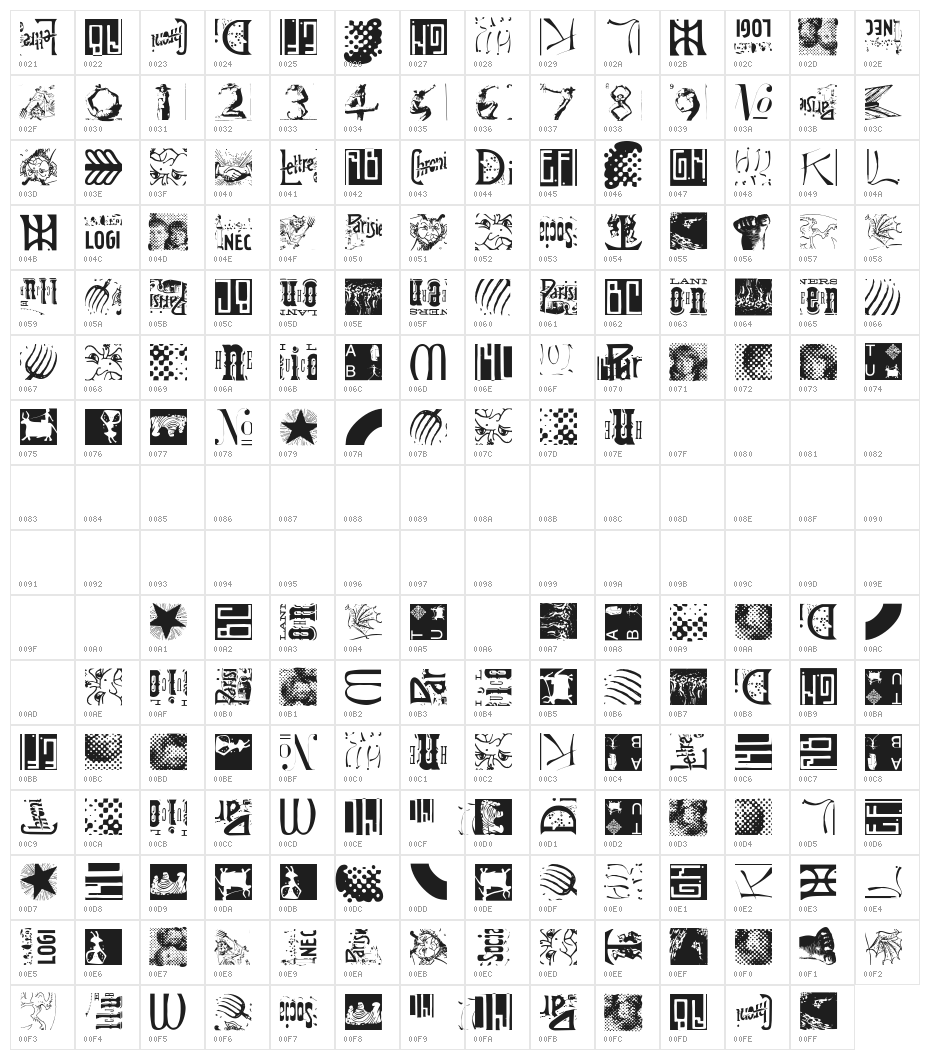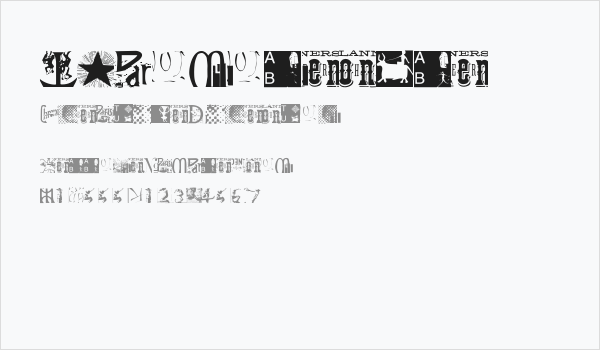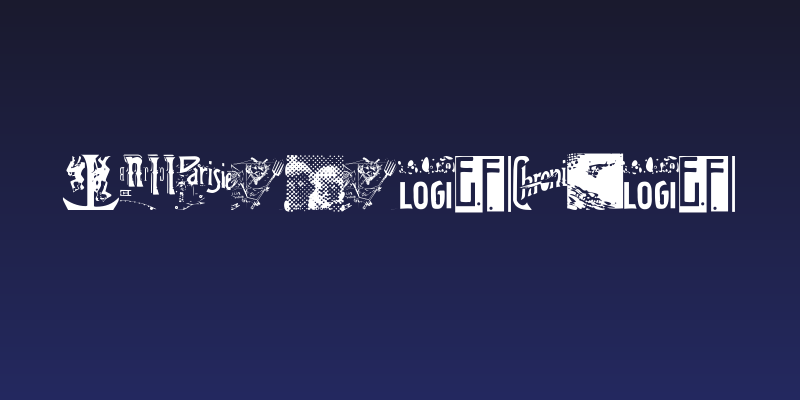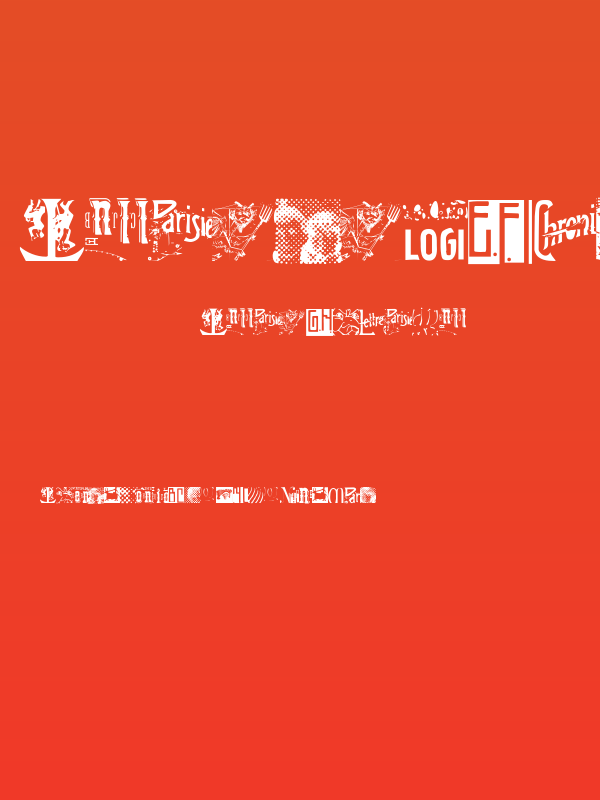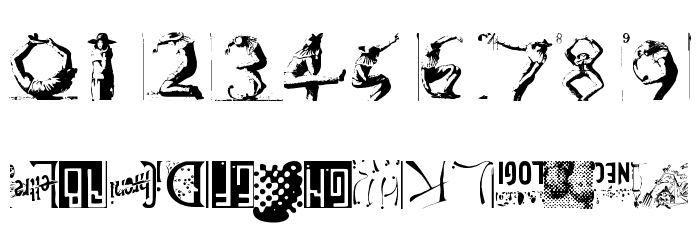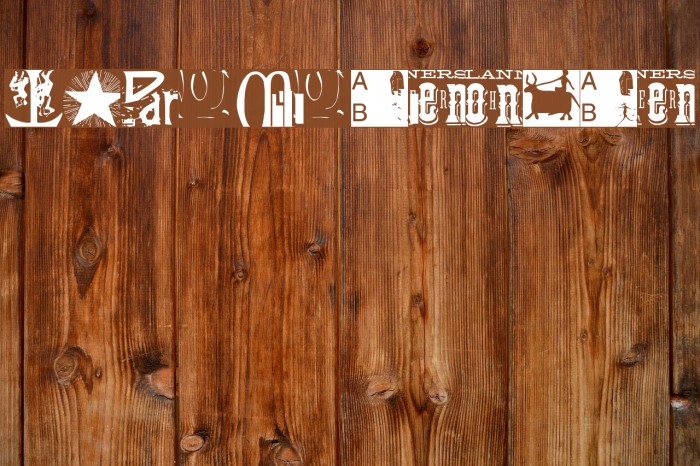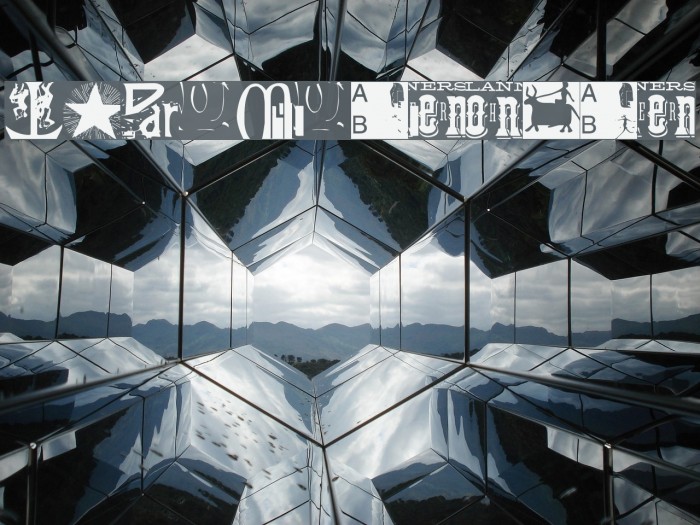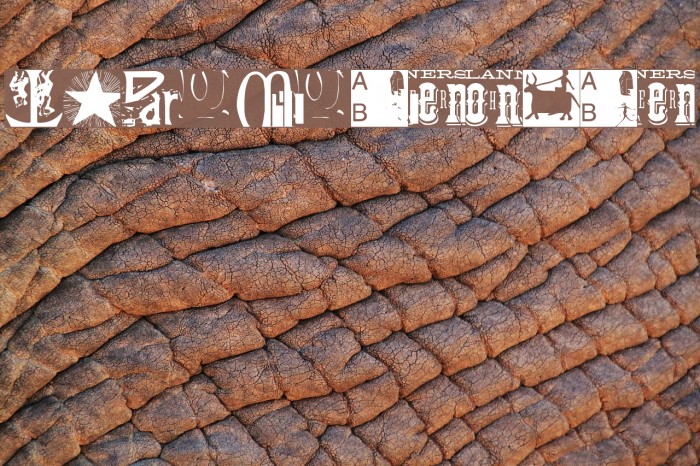
Typomolecule Font
Typomolecule Description
This font is a highly creative and eclectic collection of characters, each designed with unique artistic elements. The uppercase letters feature a mix of abstract shapes, patterns, and illustrations, giving each character a distinct personality. The lowercase letters continue this theme, incorporating various artistic styles and motifs. The numbers are particularly expressive, with each digit represented by a dynamic human figure in a pose. Special characters are equally imaginative, featuring a range of designs from abstract symbols to playful illustrations. This font is a true showcase of artistic expression, blending typography with visual art in a way that is both bold and captivating.
| Overall Style | Artistic, Eclectic |
| Use Case | Logos, Posters, Artistic Projects |
| Proposed Projects | Ideal for creative projects such as album covers, posters, art installations, and any design work that seeks to make a bold visual statement. |